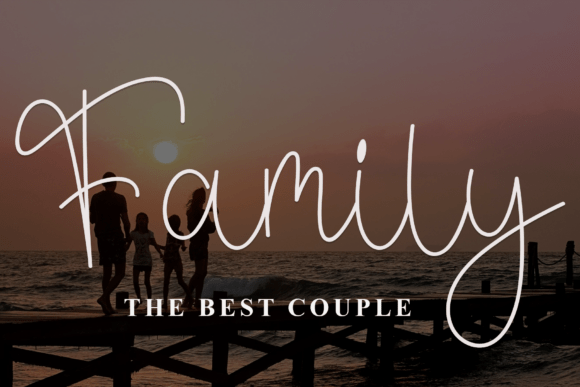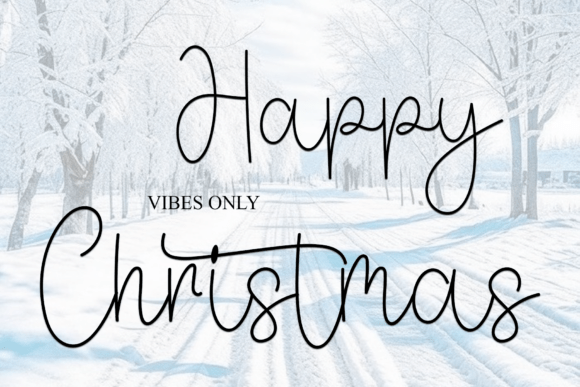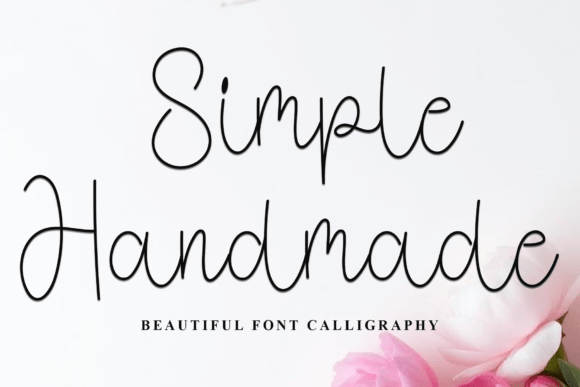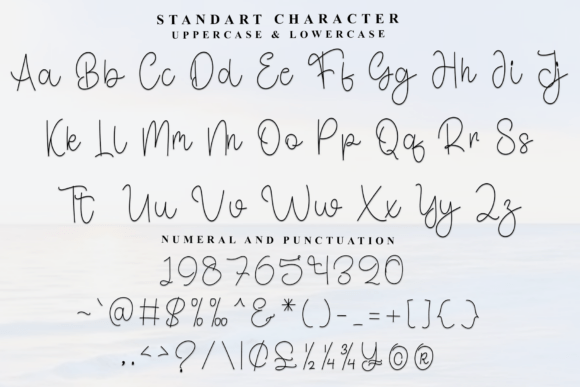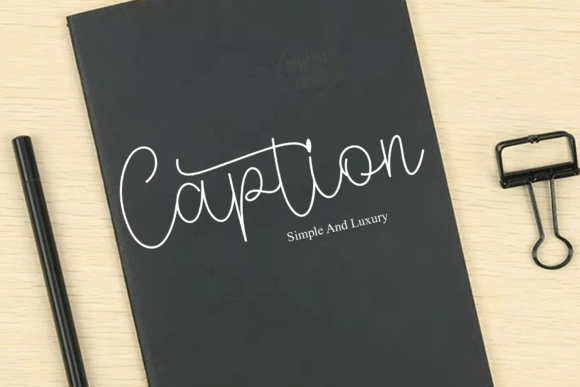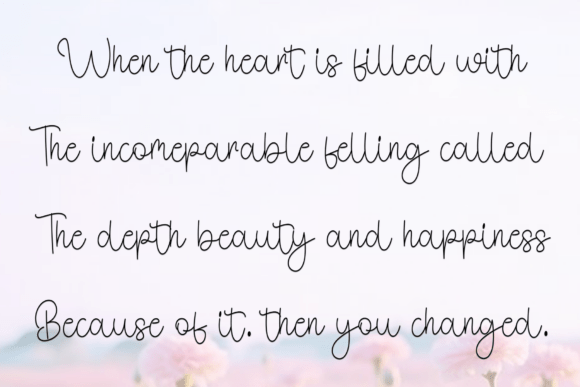
Fishing Vocation Font: Elevate Your Designs with a Unique and Versatile Typeface
In the world of design, a font can make all the difference in creating a lasting impression. For crafters, designers, and creative enthusiasts, finding the perfect font can be a daunting task. However, if you’re looking for a beautiful and eye-catching font that can add a special touch to your projects, look no further than the Fishing Vocation Font. Designed with a soft, unique touch, this font is sure to elevate your designs and make them stand out from the crowd.
A Distinctive and Meaningful Font
The Fishing Vocation Font boasts distinctive strokes that give it a special character, making it both meaningful and versatile for future use. Its unique design ensures that your designs will have a one-of-a-kind look that will capture the attention of your audience. Whether you’re working on a design project, craft, or other creative work, this font is perfect for adding a personal touch.
With various characters, the Fishing Vocation Font is ideal for a wide range of design projects and crafts. Its natural font style makes it perfect for designers and crafters who want to add a touch of elegance and sophistication to their work. From brochures and posters to invitations and greeting cards, this font is sure to enhance your designs and make them appealing to many audiences.
The Fishing Vocation Font offers endless creative possibilities for designers and crafters. Its unique design and versatility make it perfect for a wide range of products, including:
- Design projects: Use the Fishing Vocation Font to create stunning brochures, posters, and flyers that will capture the attention of your audience.
- Crafts: Add a personal touch to your crafts, such as handmade cards, invitations, and gift tags.
- Digital art: Use the font to create beautiful digital art, including illustrations, graphics, and animations.
- DIY projects: Add a touch of elegance and sophistication to your DIY projects, such as signs, banners, and decorations.
Why Choose the Fishing Vocation Font?
So, why choose the Fishing Vocation Font for your design projects and crafts? Here are just a few reasons:
- Unique design: The Fishing Vocation Font boasts a unique and eye-catching design that will make your designs stand out from the crowd.
- Elegance and sophistication: The natural font style of the Fishing Vocation Font adds a touch of elegance and sophistication to any design.
In conclusion, the Fishing Vocation Font is a beautiful and eye-catching font that is perfect for designers and crafters who want to add a unique touch to their projects. Its distinctive strokes, versatility, and compatibility with various applications make it an ideal choice for a wide range of design projects and crafts. Whether you’re a professional designer or a hobbyist, this font is sure to elevate your designs and make them appealing to many audiences. So why wait? Download the Fishing Vocation Font today and take your designs to the next level!